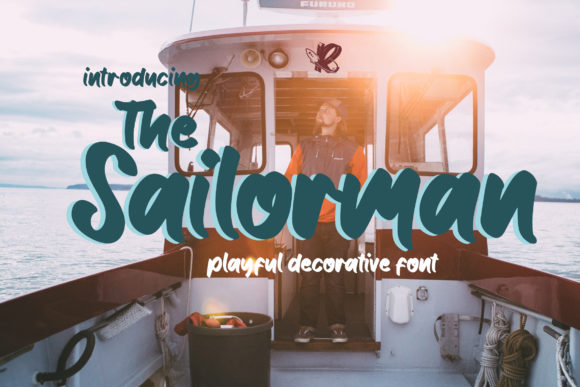
Step into a world of captivating artistry with Sailorman Font, an exquisite script font that exudes charm and playfulness. Inspired by the vibrant energy of tattoo lettering, this font is more than just a design choice—it's an expression of individuality and creativity.
With its delightful cursive strokes and the distinctive flair of a paintbrush, Sailorman Font adds a touch of whimsy and delight to any project. Its joyful style transcends the boundaries of conventional fonts, making it a versatile companion for a myriad of designs, whether you're creating eye-catching logos, stunning social media graphics, or simply adding a personal touch to your everyday documents.
Embrace the freedom of artistic expression with Sailorman Font. Its playful spirit invites you to embark on a creative journey, where imagination knows no limits. Let your words dance across the page, adorned with the vibrant hues of Sailorman's enchanting curves.
Whether you're a seasoned designer seeking a unique addition to your font collection or an enthusiastic beginner eager to explore the world of typography, Sailorman Font is your perfect partner. Its user-friendly nature welcomes you with open arms, guiding you through the creative process with ease. You don't need to be a calligraphy master to harness the magic of Sailorman Font. Its intuitive design makes it accessible to all, empowering you to transform your ideas into stunning visual creations.
Don't settle for ordinary fonts that blend into the background. Choose Sailorman Font, the ultimate expression of individuality and artistic flair. Let your designs radiate with joy, embracing the playful spirit that lies within this enchanting font. Discover the limitless possibilities that await you when you unlock the power of Sailorman Font.